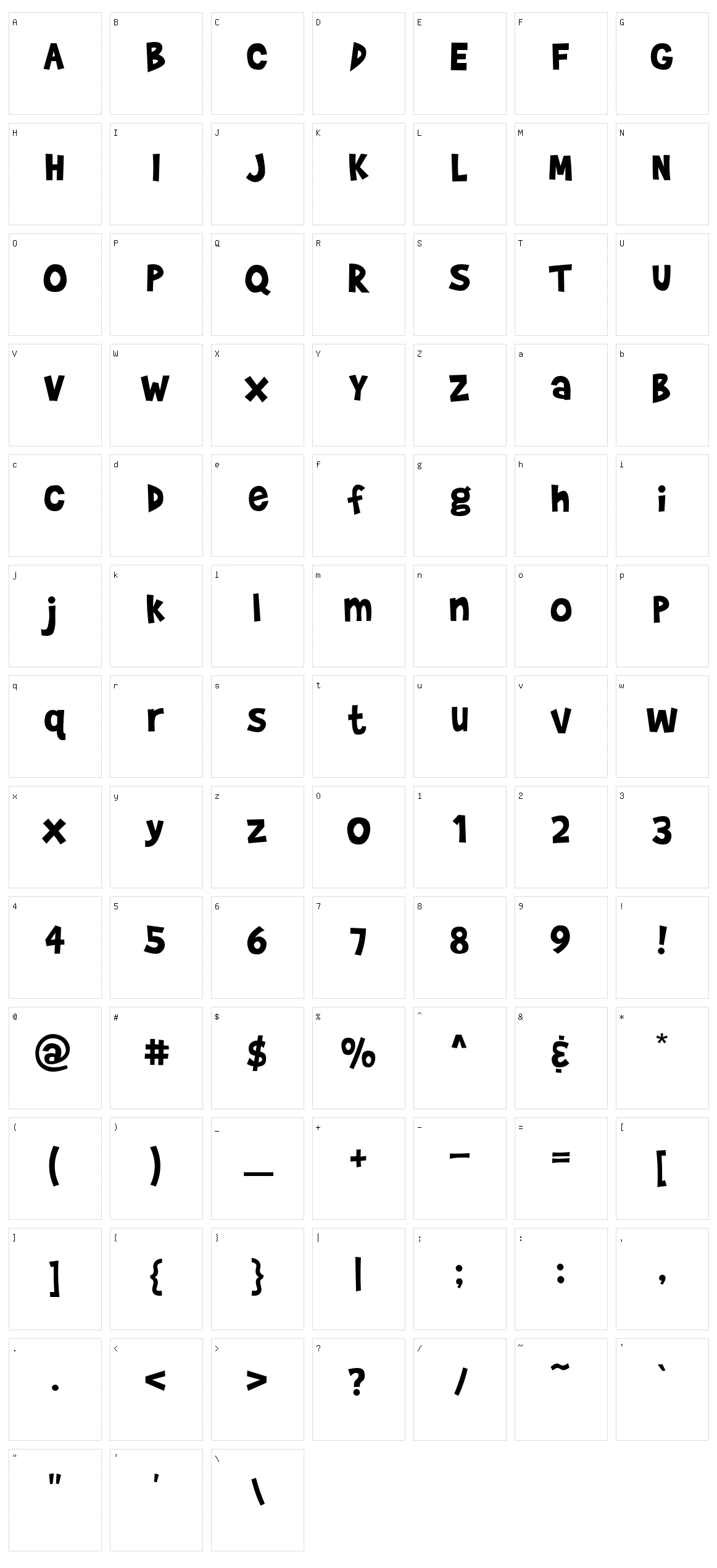
Thanks for downloading "Brady Bunch Remastered" from Insanitype! Font Design. This font is loosely based on the logo from the Brady Bunch television show and movie. The original version was made from scratch, and this version was touched up in Font Creator Program and Fontographer. It includes all international characters and a cool dingbat picture of yours truly. If you use it, please let me know!
Changes in this version:
1.) I added a lowercase "g"
2.) Did some general touch-ups. If you noticed, the original "Brady Bunch" font was made completely from scratch in Softy. No auto-tracing. Nothing. Softy was the only free font program at the time. It didn't have fancy options like "Remove Overlap" or anything, and that caused some problems, especially in the international characters, but it was noticeable in a few keyboard characters as well, such as the dollar sign. Anyhoot, i fancy-ized it in a more fancy-ized program.
3.) Changed the name, so you can still keep both Brady Bunch and Brady Bunch Remastered on your system.